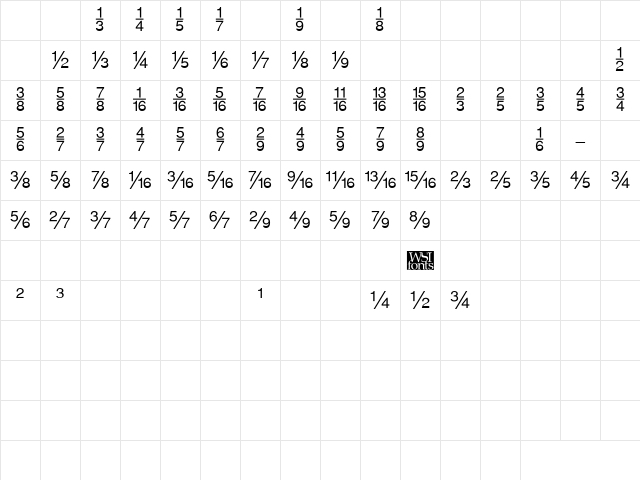
FractionsSans Regular
Design Context for FractionsSans
FractionsSans is a composed and adaptable typeface that performs quietly and consistently across a wide range of design contexts.